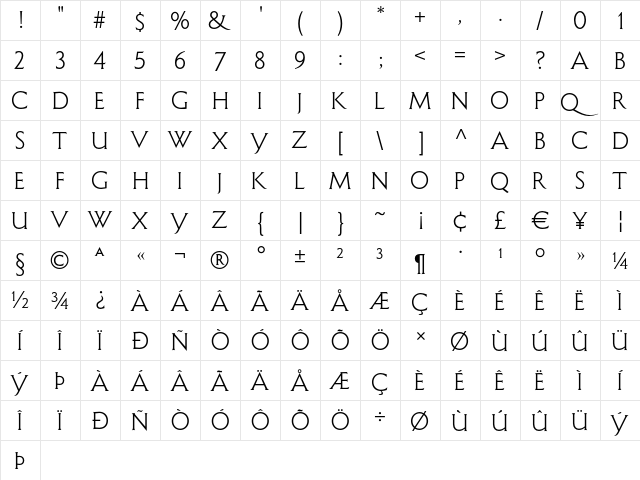
ShangoGothic Regular
Design Context for ShangoGothic Typeface
ShangoGothic takes a clean, functional approach — its unadorned letterforms prioritise legibility and work reliably across screen and print environments.
Font Pairing: Works well alongside a characterful serif or display font that can carry the expressive load while ShangoGothic handles the functional copy.
Pro Tip: Use ShangoGothic for UI labels, navigation, and short-form body copy where clean legibility is the priority.